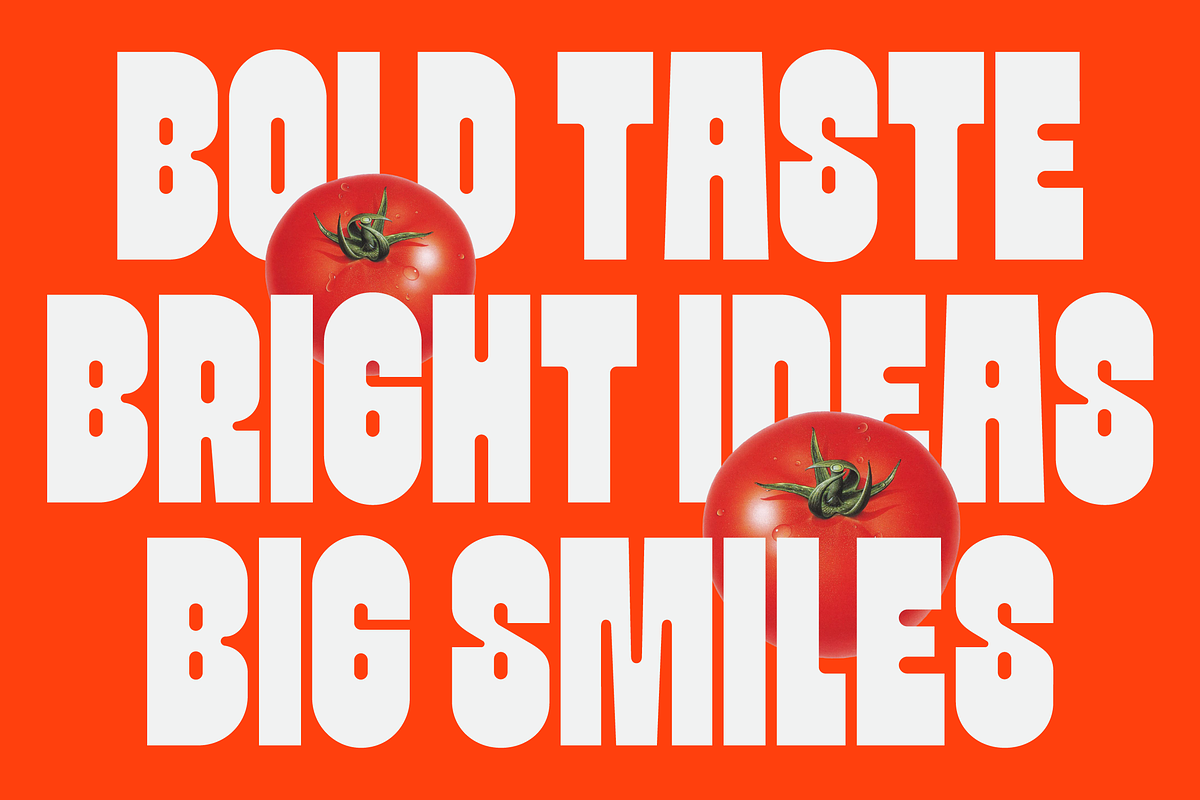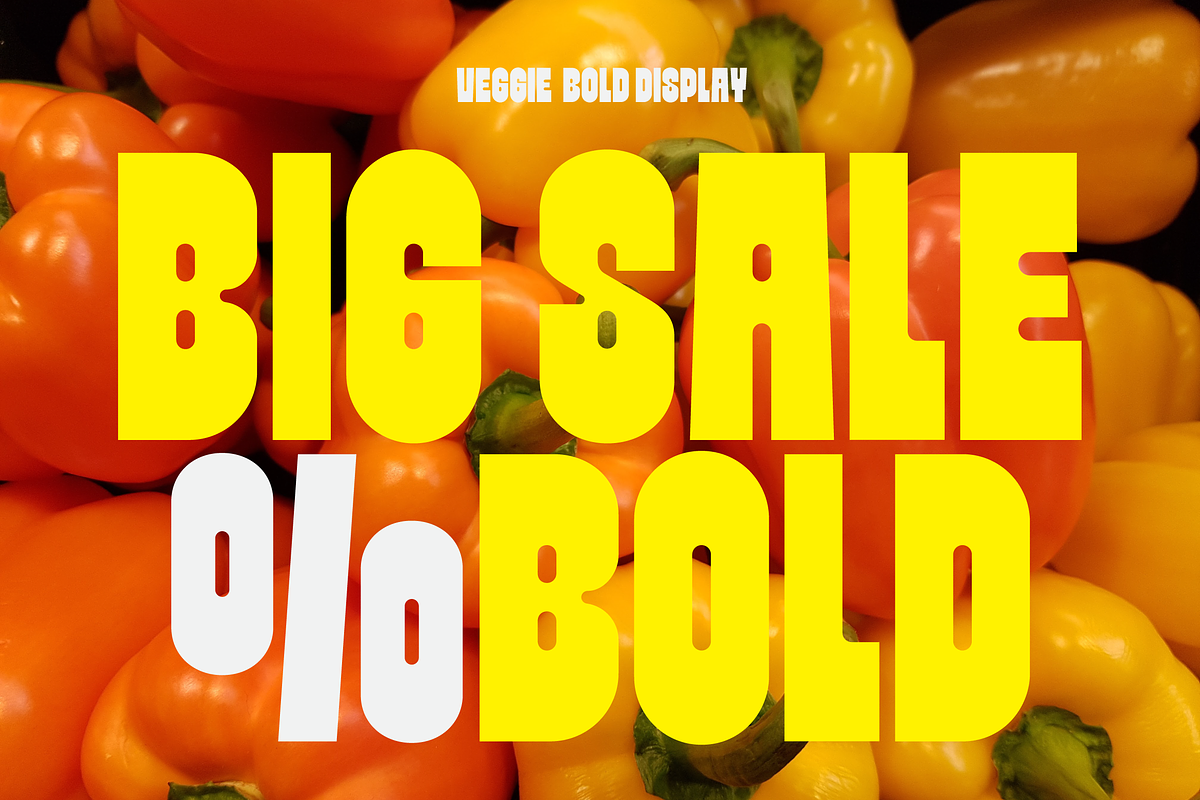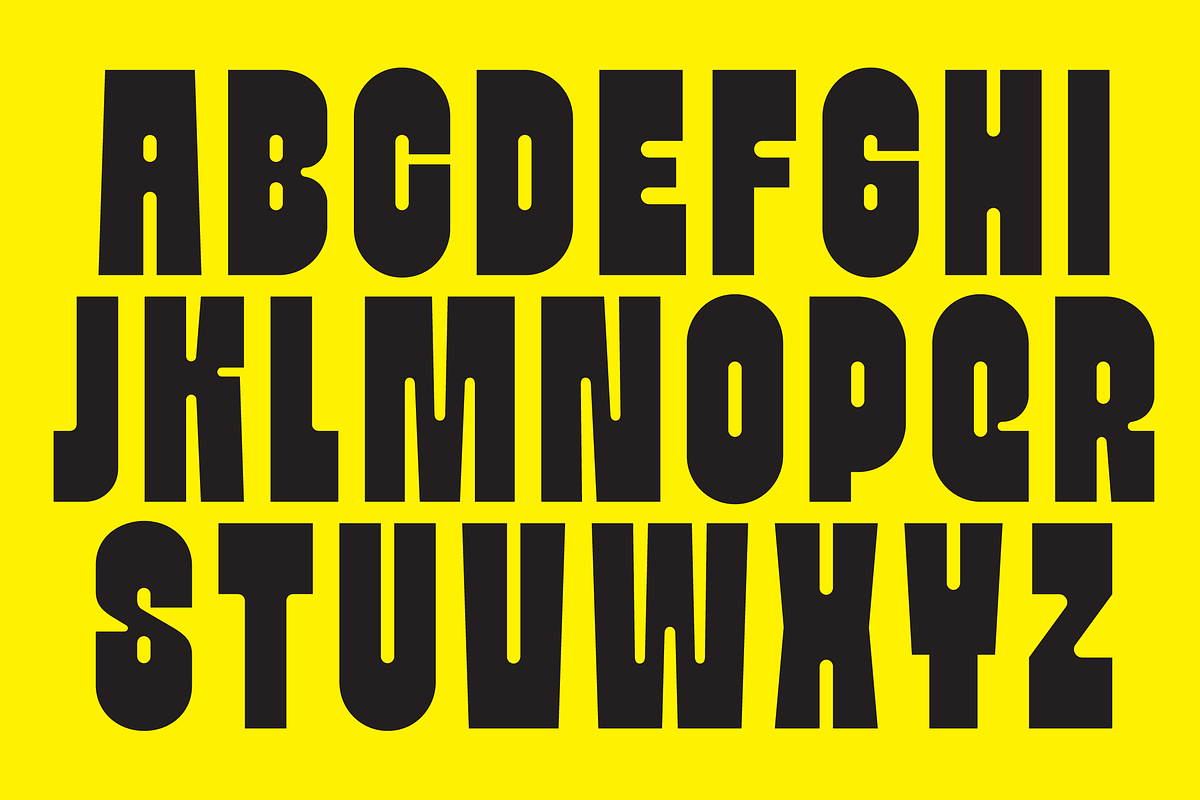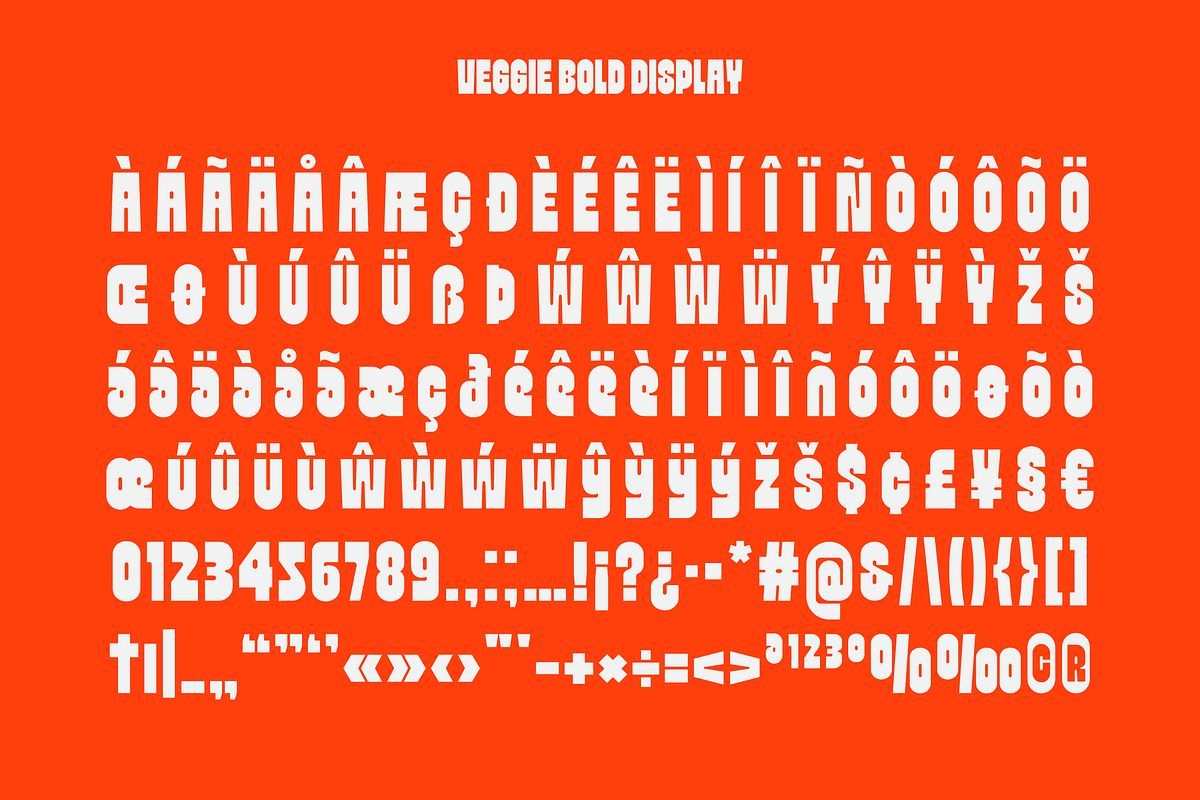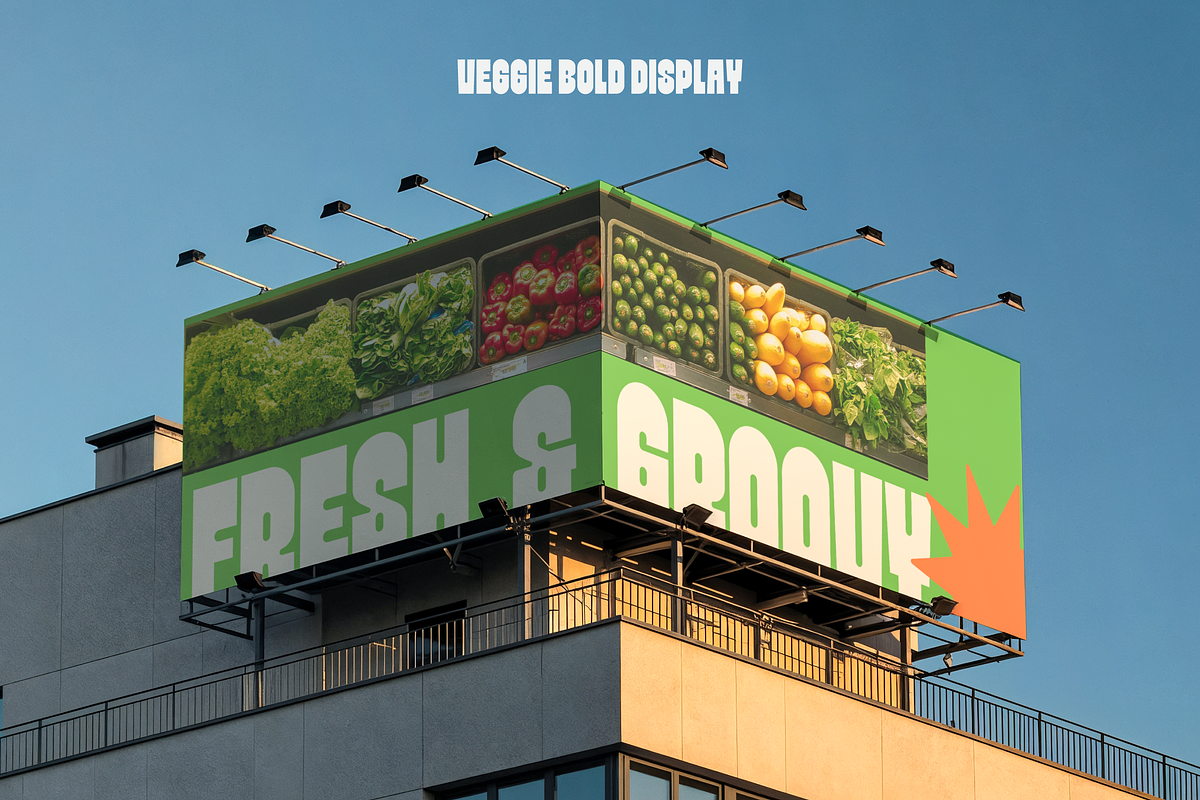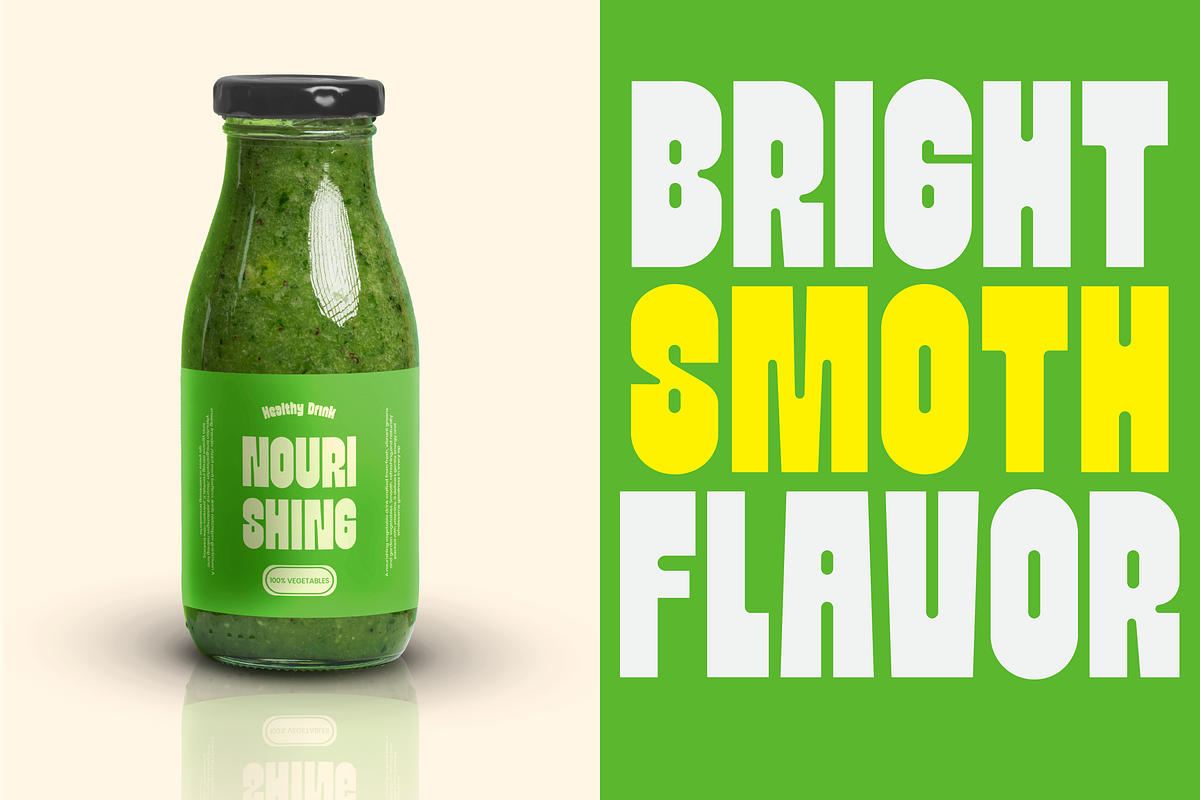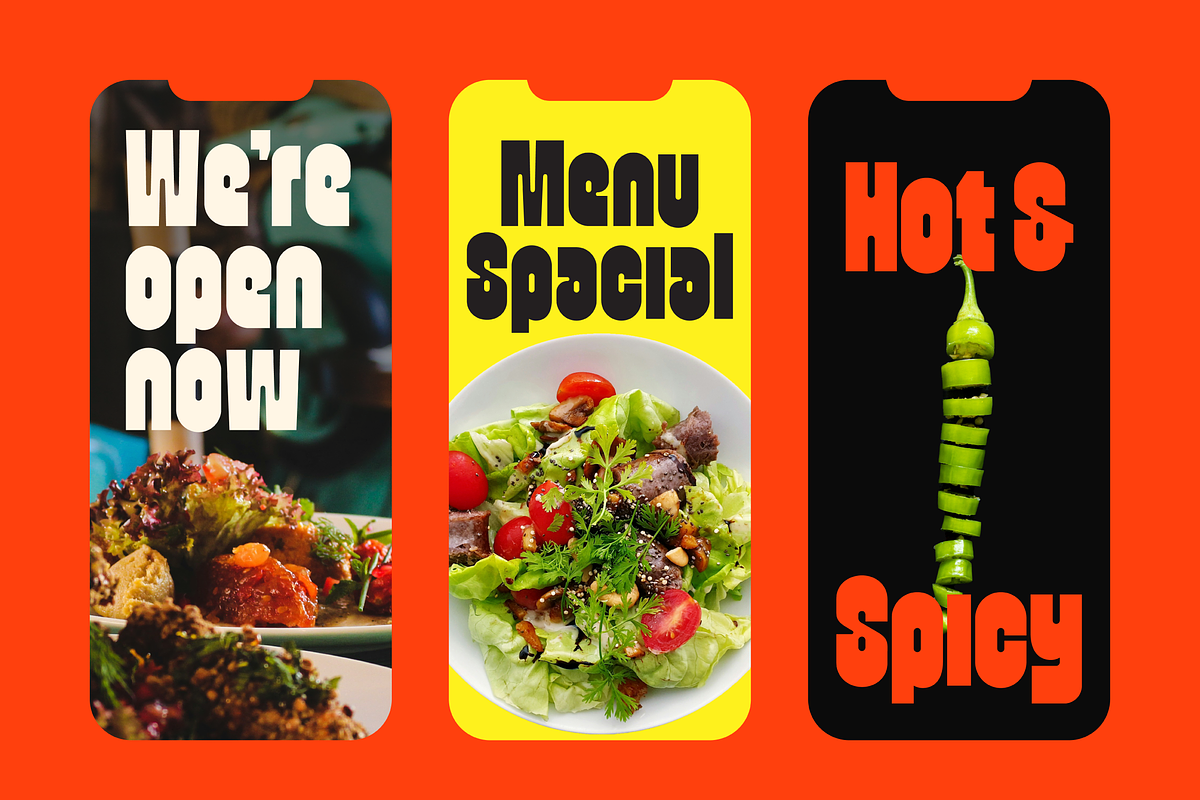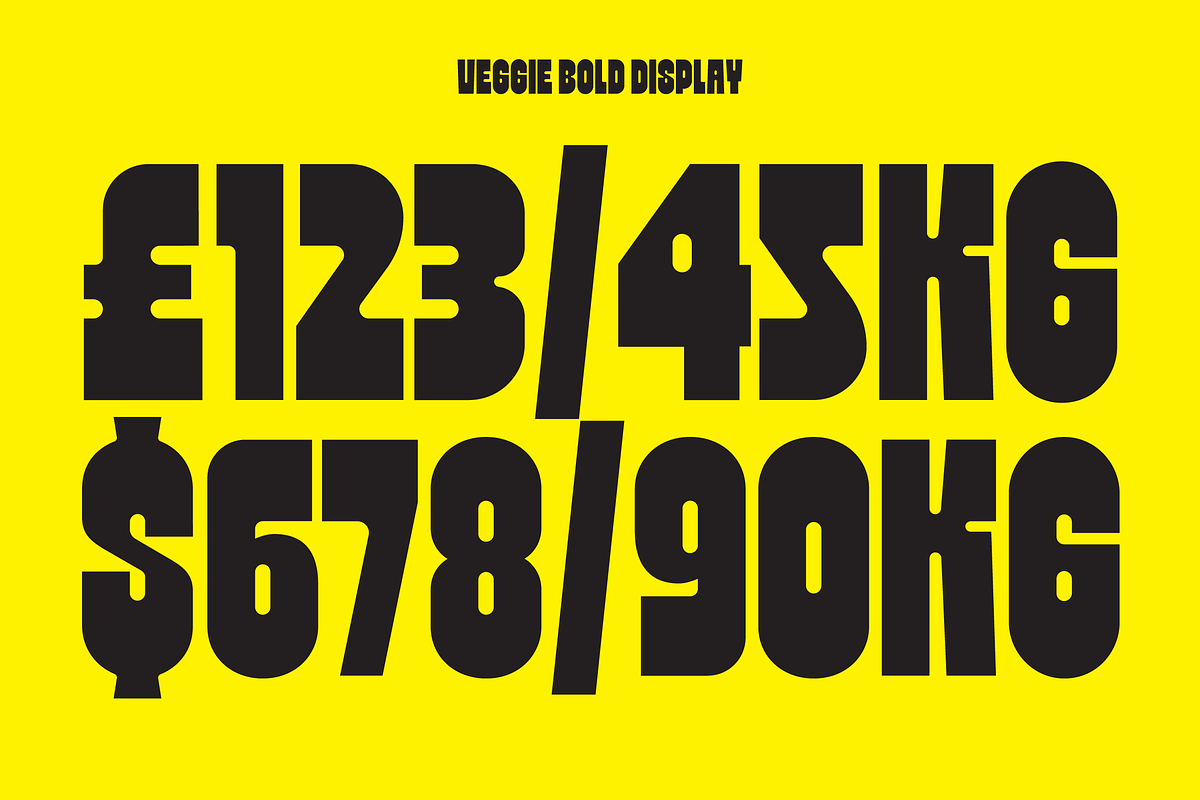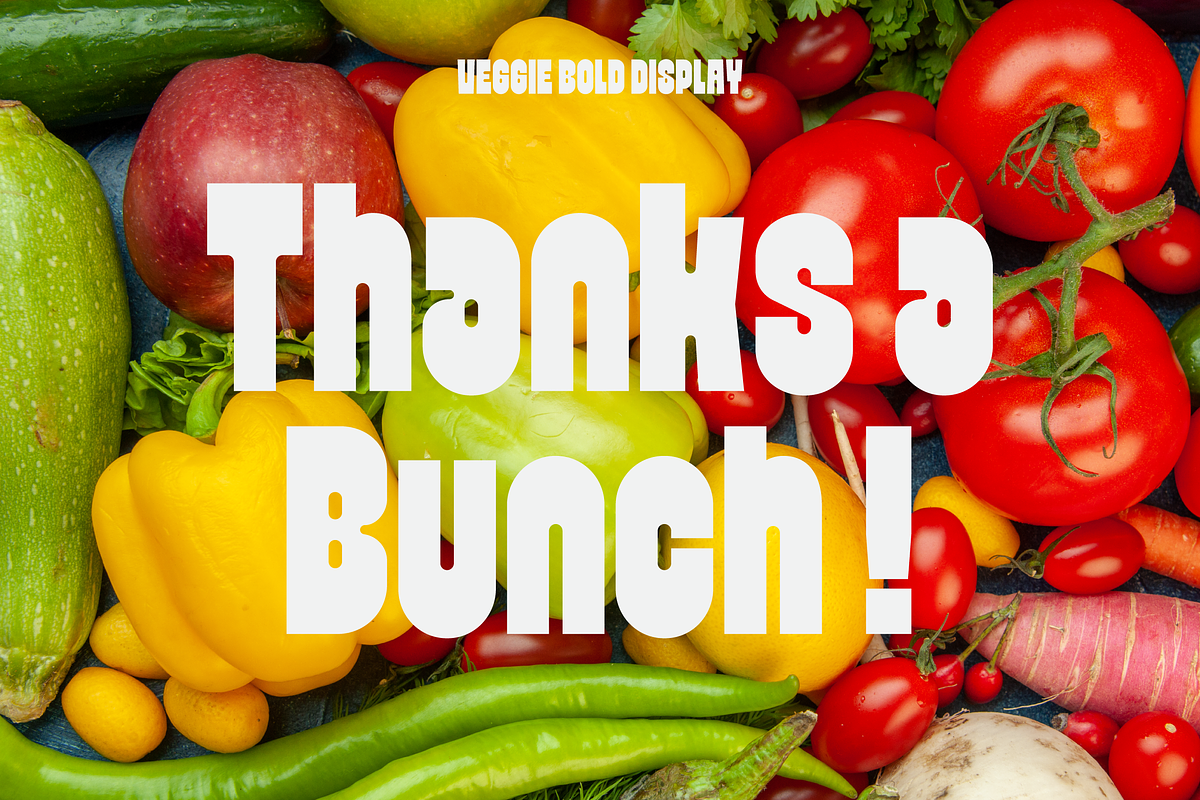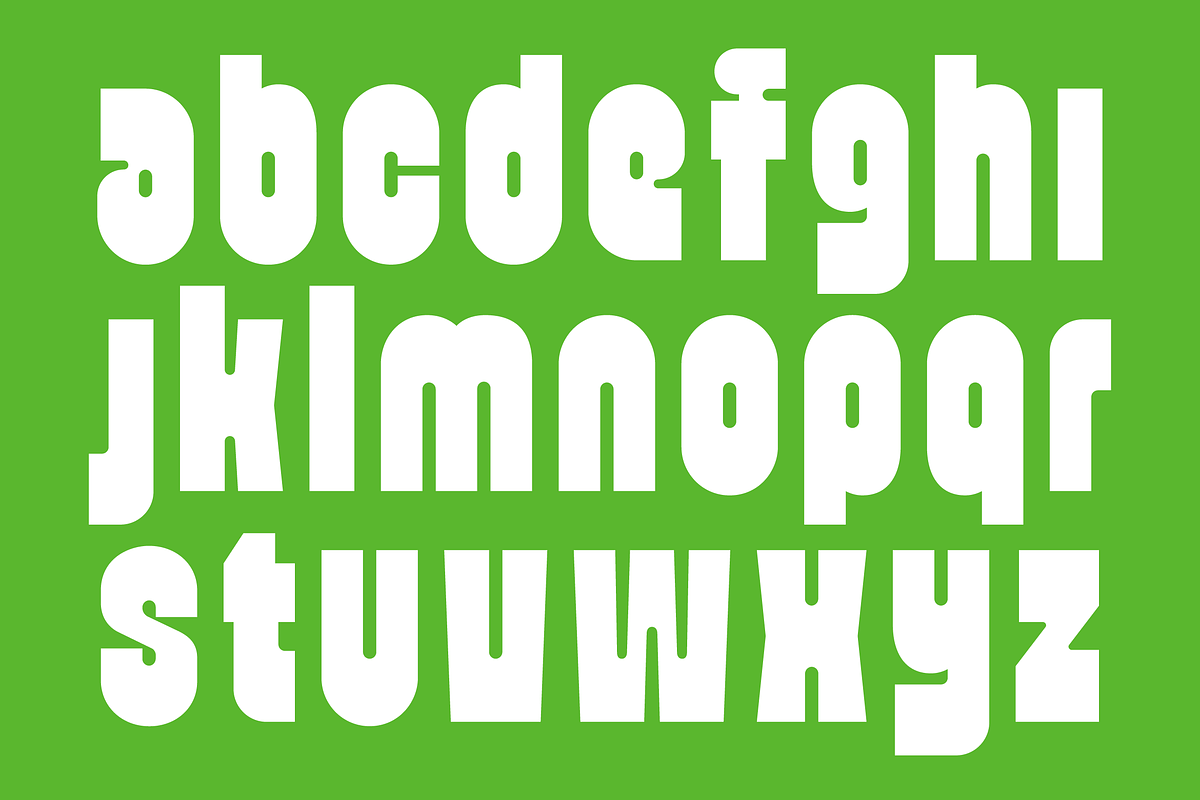
Veggie - Bold Font
Veggie is a bold display typeface with semi condensed proportions and rounded shapes, delivering a modern, strong, and highly recognizable appearance. Its solid and voluminous character makes it ideal for headlines, posters, product packaging, and branding needs that require high visibility and a positive energetic impression. Perfect for design projects that aim to stand out visually while still feeling friendly and contemporary.